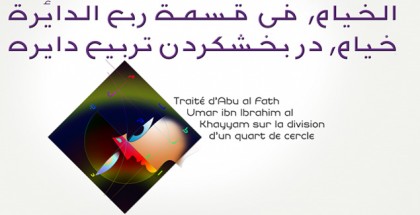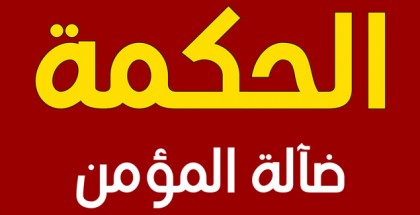
HS Almidad font
HS Almidad font is a geometric Kufi font with triangle look. All letters of its family were conceived with suitable and coordinated dimensions to enhance beauty and harmony. It has five weights: Thin, Light, Regular, Medium, Bold, and all support Arabic, Persian, Urdu and Kurdish languages. It can be useful for book titles and variety of other geometrical constructions projects.
Supported languages: Arabic, Kurdish, Persian, Urdu
Designers: Hasan Abu Afash
Publisher: Hiba Studio